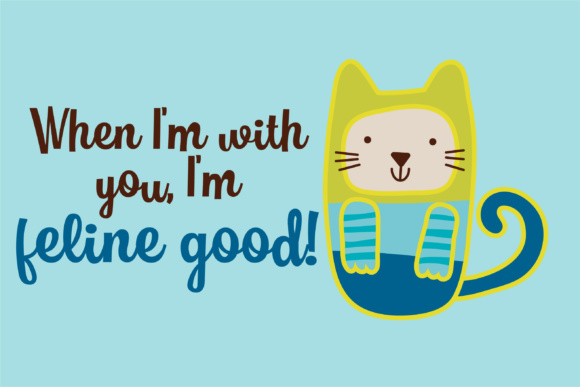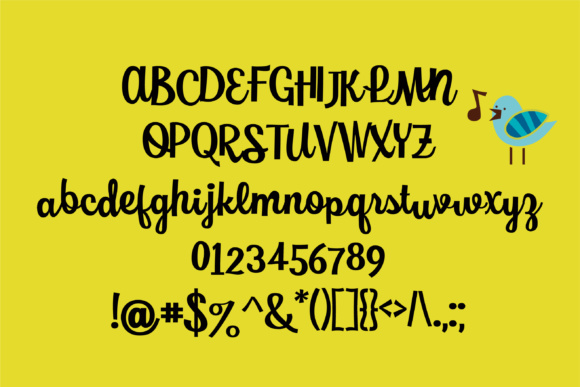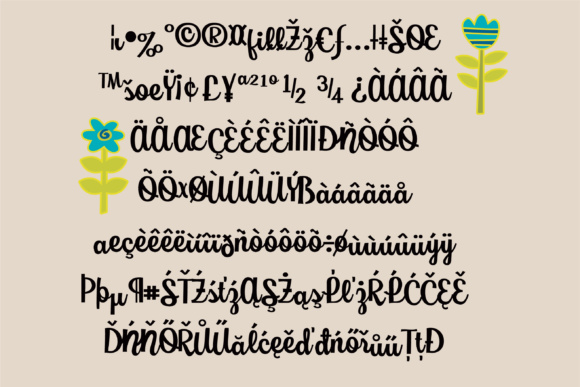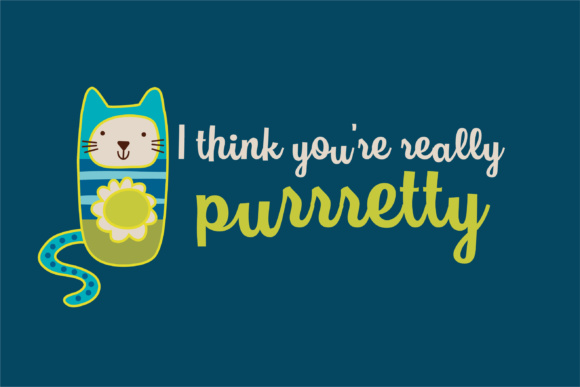
The Joy of Handwritten Letters: Unleashing Creativity with the Catawampus Font
Have you ever sat at your desk, scribbling away in a notebook, trying to capture the perfect phrase or quote? As you write, your pen dances across the page, leaving behind a trail of imperfections and quirks that make your handwriting uniquely yours. It’s in these moments that we’re reminded of the beauty of handwritten letters and the joy of putting pen to paper.
For designers and creatives, finding the perfect font to capture this whimsical essence can be a challenge. That’s where the Catawampus Font comes in – a fun and playful script font that’s designed to evoke the feeling of handwritten letters. With its bouncy baseline and mix of thick and thin letters, this font is perfect for adding a touch of personality to your designs.
Catawampus Font Key Features
- Unique Characteristics: Catawampus Font features a unique, hand-drawn design with a mix of modern and vintage elements, making it perfect for creating a distinctive visual identity.
Catawampus Font Review
Overall, I think the Catawampus font has some great qualities that make it a unique and eye-catching choice for designers. ✨ The font’s irregular, hand-drawn feel gives it a lot of character and can add a touch of whimsy to a design. ✨ I also appreciate the font’s versatility, as it can work well in both digital and print applications.
However, there are some limitations to consider. ⚠️ One of the main issues I have with the font is its readability. The irregular shape and spacing of the letters can make it difficult to read, especially in larger blocks of text. ⚠️ Additionally, the font may not be suitable for all types of projects, as its quirky feel may not be the best fit for more formal or professional designs.
Here are some key points to consider when deciding whether to use the Catawampus font:
- ✨ Unique, hand-drawn feel adds character to a design
- ✨ Versatile and can work well in both digital and print applications
- ⚠️ Readability may be an issue in larger blocks of text
- ⚠️ May not be suitable for all types of projects, especially formal or professional designs
Catawampus Font: A Practical Application Guide
For the most effective use of the Catawampus Font, consider using it for headings or titles to add a touch of whimsy and personality to your designs. It’s also a great choice for creating a vintage or distressed look in your designs.
Some common use cases for the Catawampus Font include:
– Creating a unique and eye-catching title for a blog post or article
– Adding a vintage touch to a design project, such as a retro-style poster or advertisement
– Creating a distressed or worn look for a text element, such as a quote or phrase